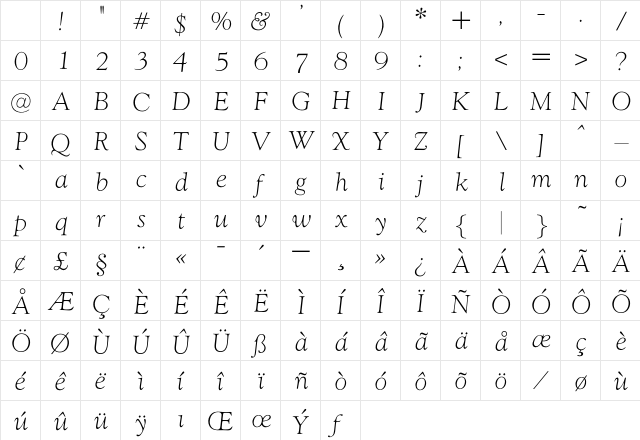
OPTIwtcGoudy-LightItalic is a composed and adaptable typeface that performs quietly and consistently across a wide range of design contexts. The slanted form adds forward momentum and visual energy. Its slender proportions lend an understated elegance to any composition.